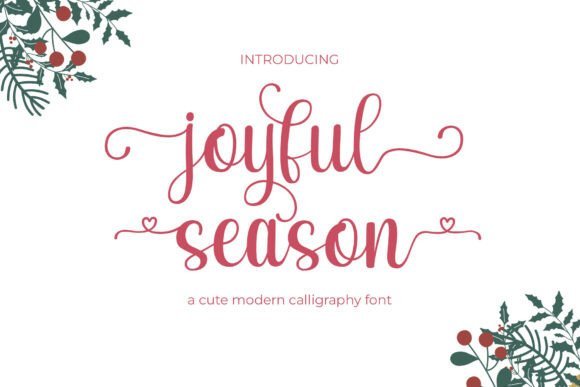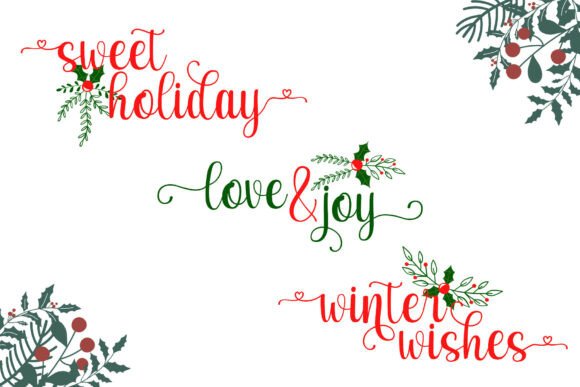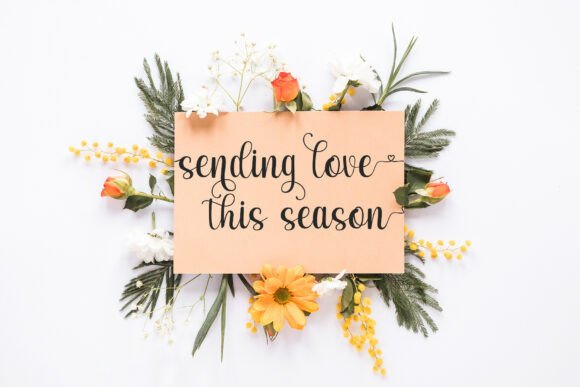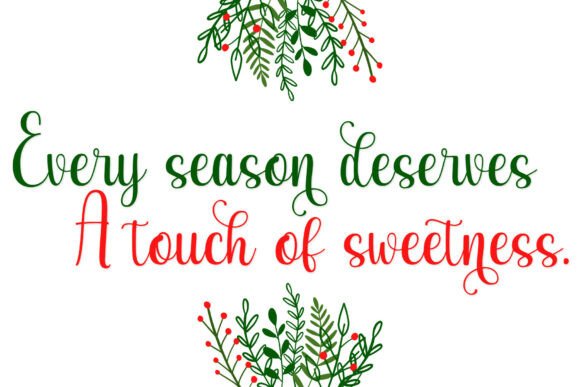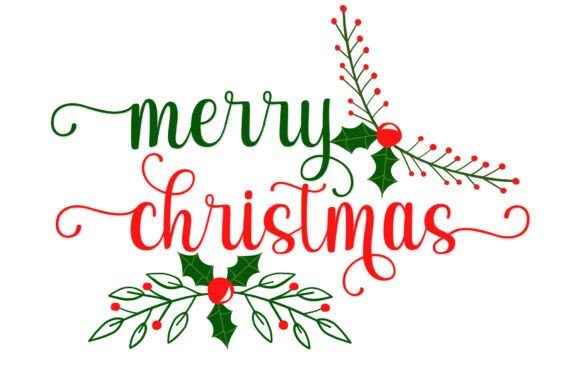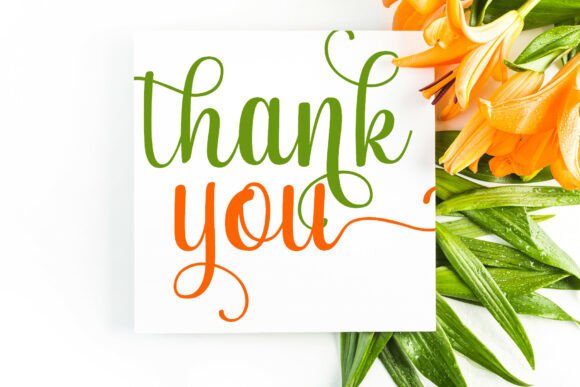
Embracing the Magic of the Season: Introducing Joyful Season Font
It’s that time of the year when creativity knows no bounds, and the air is filled with the spirit of love and joy. As you sit by the fireplace, sipping hot cocoa, and brainstorming ideas for the perfect holiday design, you know you need the perfect font to capture the essence of the season. That’s where Joyful Season Font comes in – a charming modern calligraphy font that embodies the warmth and coziness of the holidays.
With its flowing, heart-accented swashes and soft, handwritten style, Joyful Season Font is the perfect addition to any designer’s toolkit. Whether you’re crafting festive greeting cards, designing holiday invitations, or creating seasonal branding, this font adds a touch of magic to every project. Its elegant curves and friendly vibe make it versatile for both print and digital projects, making it a valuable asset for designers looking to add a personal touch to their designs.
- Font Family: Joyful Season Font is a beautiful, high-quality font family designed for festive occasions. It includes 6 font styles: Regular, Italic, Bold, Bold Italic, Outline, and Fill.
- Character Set: The font family includes a wide range of characters, including uppercase and lowercase letters, numbers, punctuation marks, and special characters.
- Unique Characteristics: Joyful Season Font features intricate details, ornaments, and flourishes, making it perfect for creating festive and celebratory designs, such as holiday cards, invitations, and decorations.
I recently had the chance to work with the Joyful Season Font, and I must say, it’s a unique addition to any design project. ✨ The playful, cursive feel immediately catches the eye, making it perfect for festive and holiday-themed projects. The font is also highly customizable, with a wide range of weights and styles to choose from.
One of the standout features of the Joyful Season Font is its excellent legibility. Even at smaller font sizes, the characters remain clear and easy to read. ✨ The font also works well for headings and titles, adding a touch of whimsy to any design.
- ⚠️ The Joyful Season Font may not be suitable for formal or professional projects, as its playful nature may come across as unprofessional.
- ⚠️ Some users may find the font too ornate or distracting, especially when used in large quantities.
Overall, I think the Joyful Season Font is a great choice for designers looking to add a bit of fun and personality to their projects. While it may have some limitations, its unique charm and customizability make it a valuable addition to any design toolbox.
For the best results, use the Joyful Season Font in conjunction with other festive graphics and colors. Experiment with different font sizes and styles to create a visually appealing design.
The Joyful Season Font is perfect for:
- Holiday cards and invitations
- Christmas and New Year’s Eve party decorations
- Winter-themed social media graphics